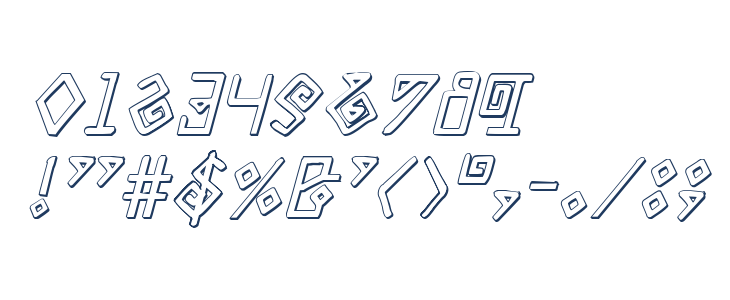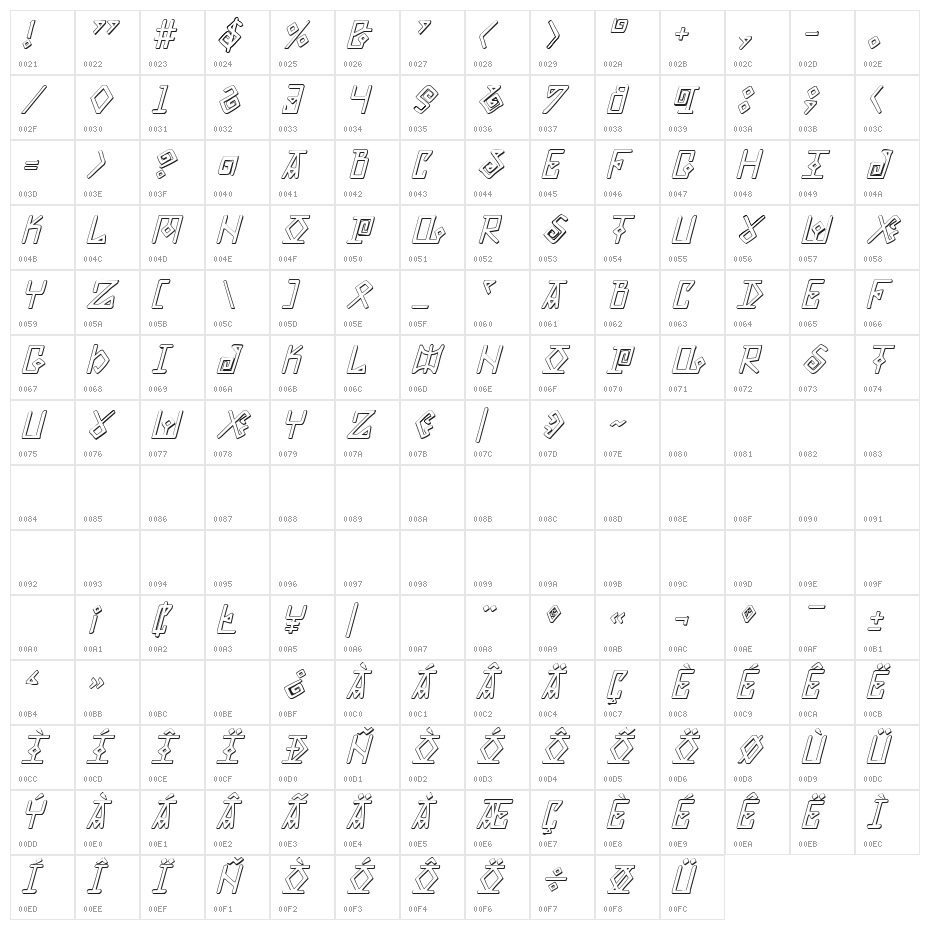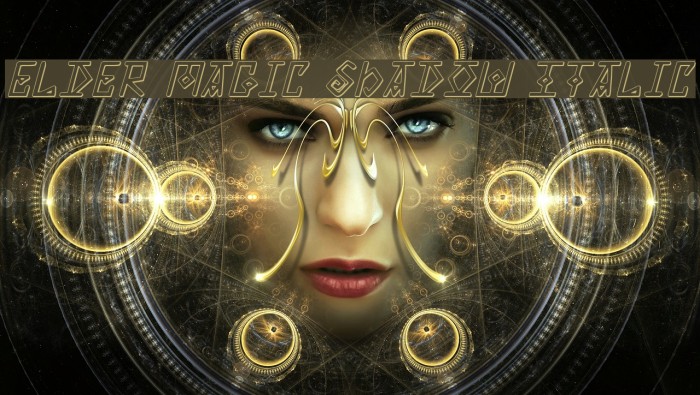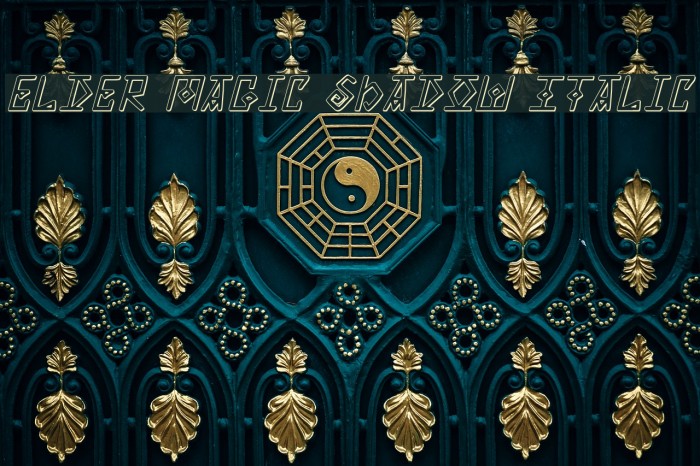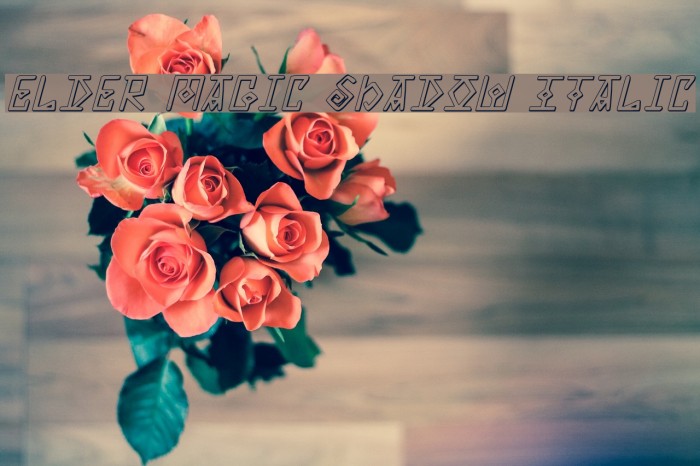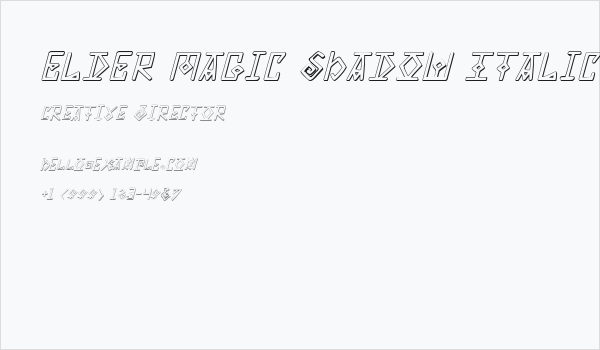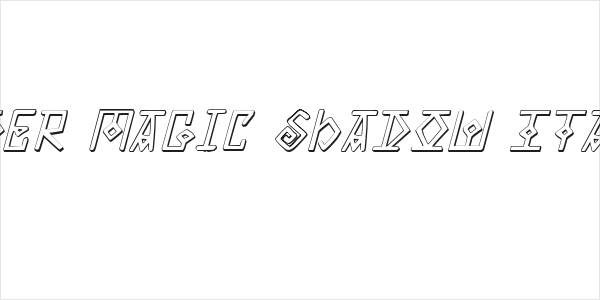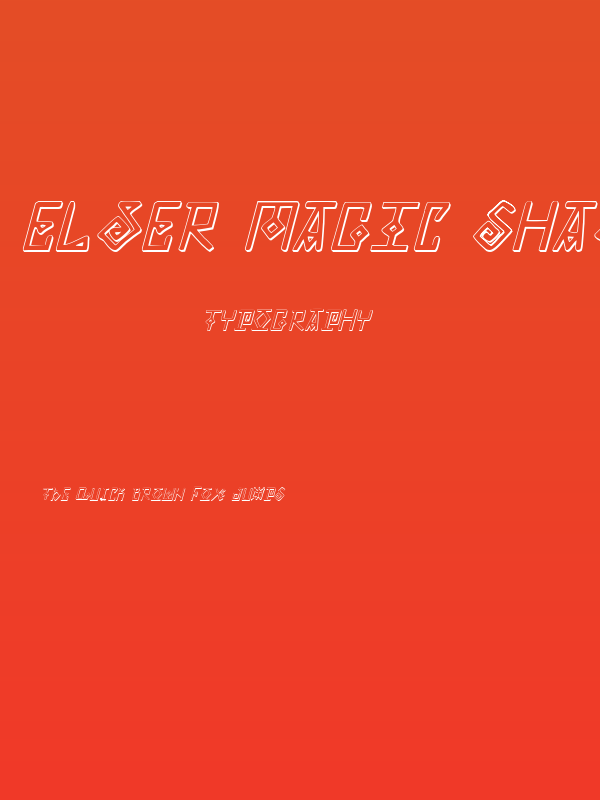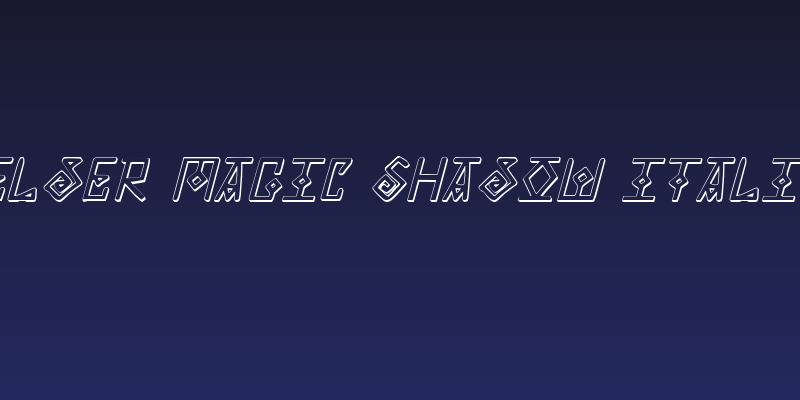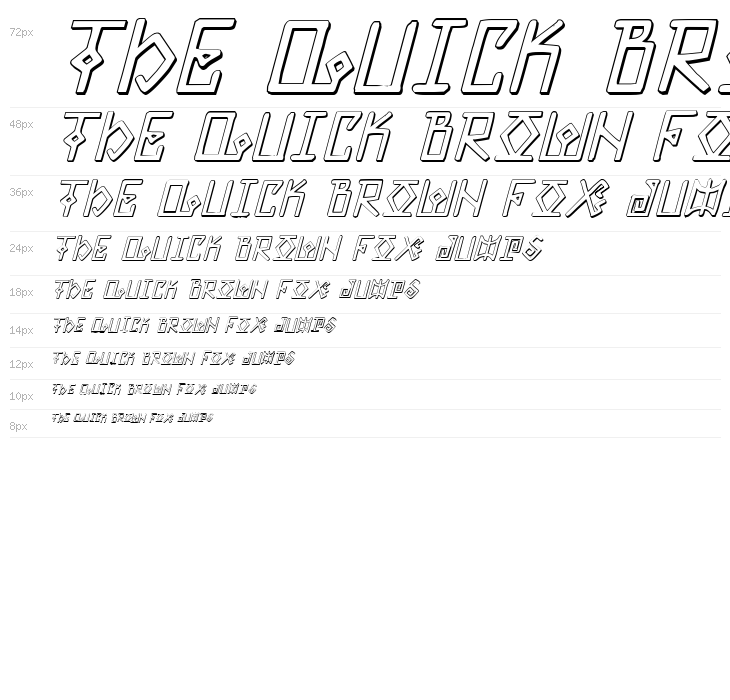
Elder Magic Shadow Italic Font
Elder Magic Shadow Italic Description
This font features a unique and mystical design, characterized by its angular and geometric shapes. Each character is crafted with intricate details, incorporating shadow effects that give a three-dimensional appearance. The letters are bold and eye-catching, with a distinct style that blends elements of fantasy and modern design. The uppercase and lowercase letters maintain a consistent theme, while the numbers and special characters complement the overall aesthetic. This font is ideal for projects that require a touch of magic and creativity, offering a visually striking option for various design needs.
| Proposed Projects | Perfect for fantasy-themed posters, video game titles, book covers, and creative branding. |